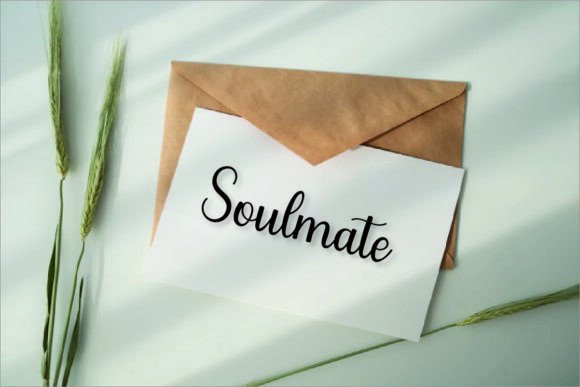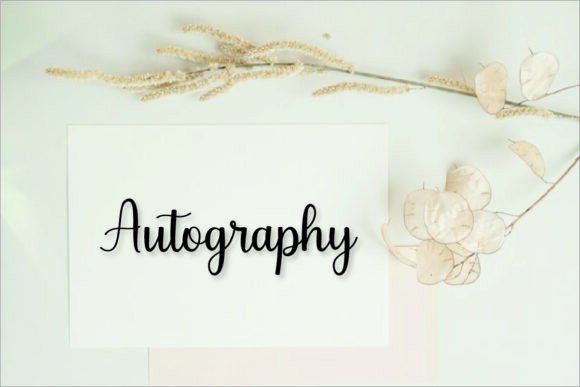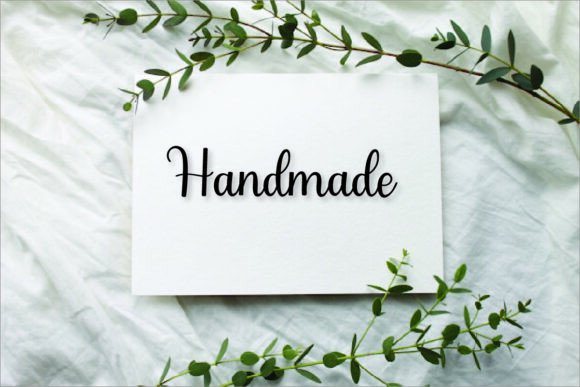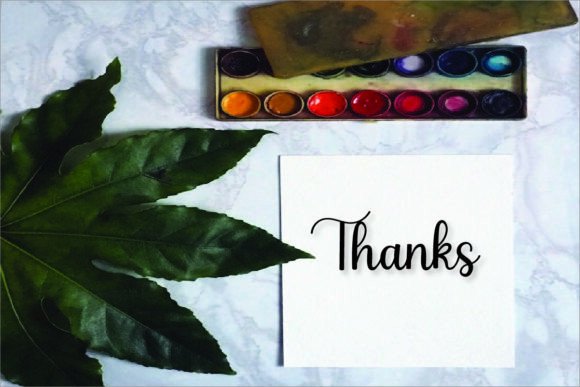
The Gateway Font: A Sweet and Elegant Addition to Your Design Arsenal
Ah, the elusive perfect font. You know, that one that makes your design project go from meh to mesmerizing. I’ve been there, done that, and got the t-shirt (which, by the way, was probably designed with a font that wasn’t quite right). But today, I’m excited to share with you a beautiful find: the Gateway font. This sweet and cursive handwritten font has become a staple in my design toolkit, and I’m confident it will do the same for you.
A Design Moment: When Gateway Stole My Heart
I was working on a wedding invitation project, and my client wanted something that exuded elegance but still felt casual and joyful. I tried font after font, but nothing seemed quite right. That was until I stumbled upon Gateway. Its gentle, flowing curves and sweet charm immediately won me over. I knew right then and there that it was the perfect fit for my project. And, as it turned out, my client loved it just as much as I did!
- ✨ Elegant yet casual: Gateway strikes the perfect balance between sophistication and laid-back charm.
- ✅ Versatile: This font looks amazing on a variety of design materials, from branding and logos to wedding invitations and greeting cards.
- 💕 Romantic touch: Gateway adds a subtle yet unmistakable sense of romance to any project.
- 🎨 Highly customizable: With OpenType features and glyphs, you can easily make Gateway your own.
⚠️ While Gateway is incredibly versatile, it may not be the best fit for very long blocks of text. Its cursive nature makes it more suitable for headlines, titles, and short paragraphs.
🤔 Some users might find that the font’s sweetness can be overwhelming in large doses. However, this is easily mitigated by using it in moderation or pairing it with a more straightforward font.
Similar Fonts or Alternatives: When to Use Each
- Lobster: A more dramatic and luxurious alternative to Gateway. Use Lobster for high-end branding or when you want to make a bold statement.
- Pacifico: A beautiful, modern script font that shares some similarities with Gateway. Use Pacifico for more contemporary designs or when you want a slightly edgier look.
- Great Vibes: A fun and elegant script font that’s perfect for designs that need a bit of playfulness. Use Great Vibes for projects that require a more whimsical touch.
- Carolyna Pro: A lovely, elegant script font that’s great for designs that require a more refined look. Use Carolyna Pro for projects that need a touch of sophistication.
Gateway was designed with the intention of creating a font that felt both elegant and approachable. Its creator wanted to craft a font that would add a touch of romance and whimsy to any design project. The result is a font that feels like a warm hug – comforting, yet stylish.
Q: Is Gateway suitable for body text?
A: While Gateway is a beautiful font, it’s best suited for headlines, titles, and short paragraphs. Its cursive nature can make it more challenging to read in large blocks of text.
Q: Does Gateway come with any special features?
A: Yes, Gateway includes OpenType features and glyphs that allow you to customize the font to your heart’s content. These features include stylistic alternates, ligatures, and more.